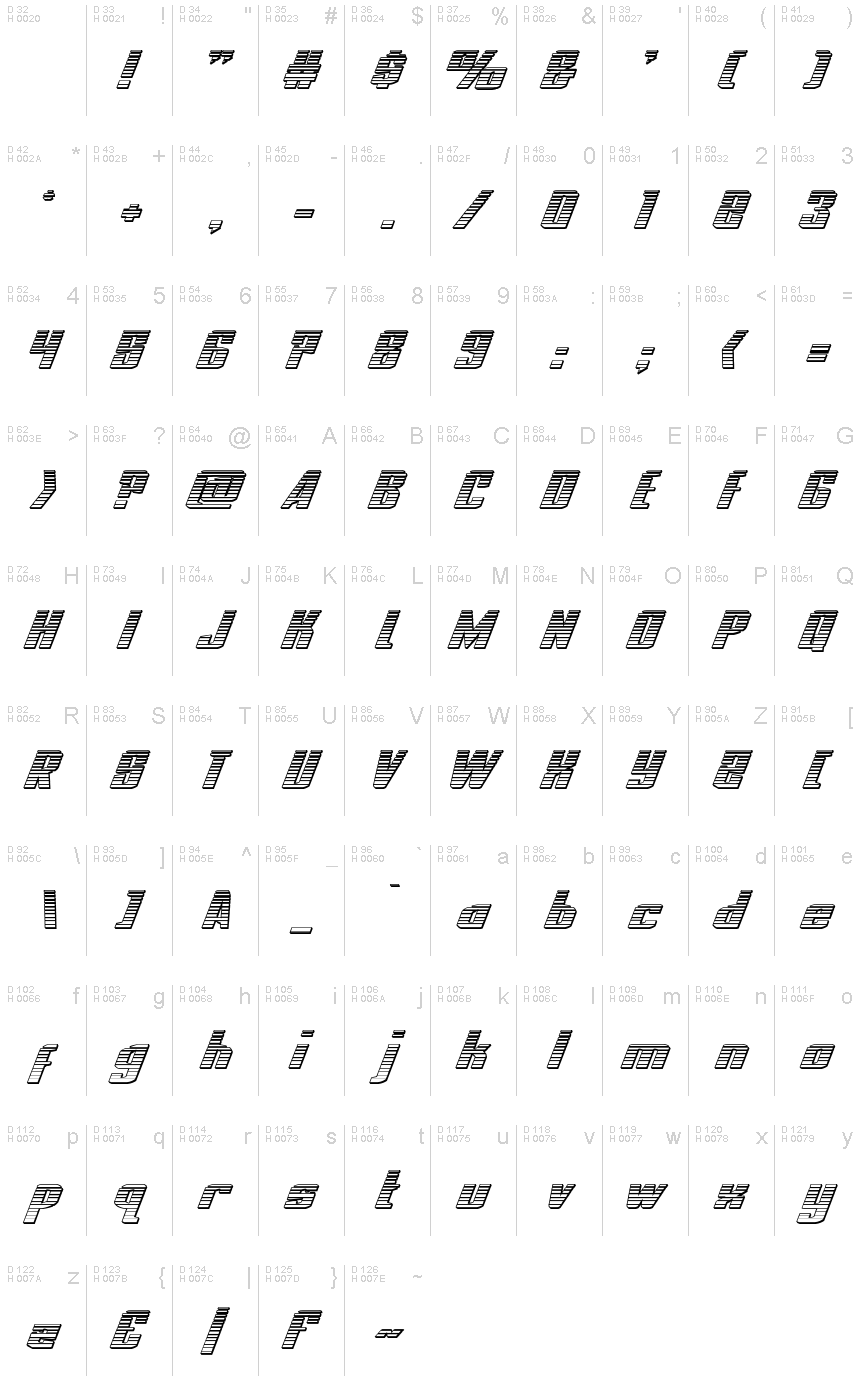
National Express Chrome Italic
National Express Chrome Italic is a striking and versatile font that blends techno-inspired aesthetics with a condensed, modern flair. Designed by Daniel Zadorozny, this display font exudes a bold, futuristic character through its sleek, angular letterforms and metallic chrome finish. The condensed width creates a sense of dynamism and efficiency, making it an ideal choice for headlines, logotypes, and attention-grabbing design elements.
This font's techno-style influence lends it a distinct personality, well-suited for a range of contemporary applications, from digital interfaces and branding to packaging and editorial layouts. Its captivating visual presence can elevate the impact of any design, seamlessly blending form and function to deliver a memorable typographic statement.